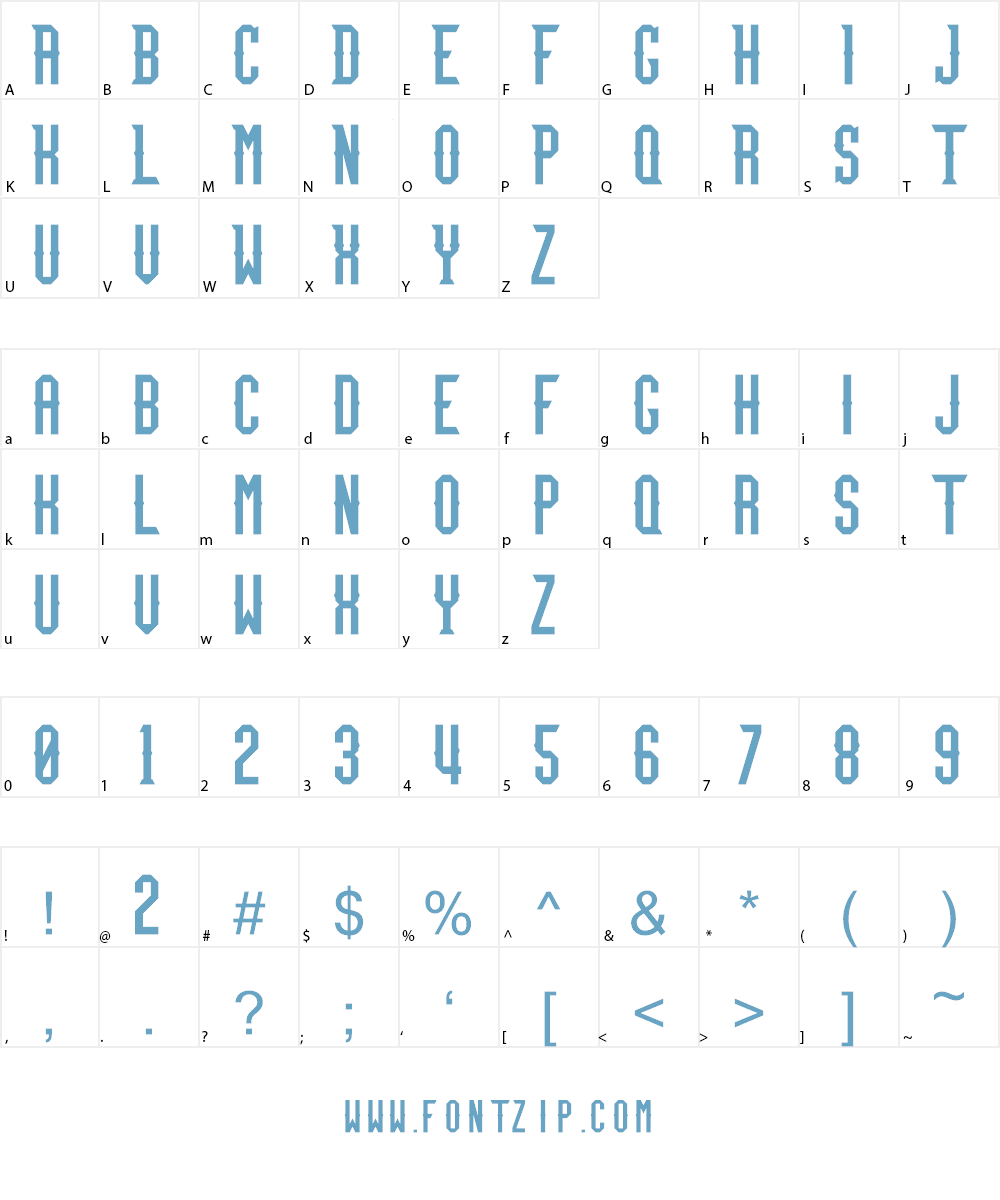
This font is an amalgamation of the spirit of the Obey The Brave logo, with College / Varsity / High School USA serif locations, and Legend M54 studs. So it is ballin', obviously. The lower case is simplified, and the upper case has additional flags on the serifs and corners, and additional studs. Updated to fix the work in progress font previously uploaded!